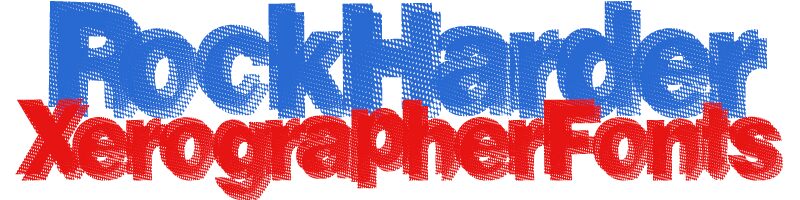
RockHarder by Xerographer Fonts is a free eroded display font with broad, heavy letters and a rough halftone texture. Offset layers and broken edges make the forms look shaken, overprinted, and worn.
Concert posters are its strongest setting, especially for punk, metal, or industrial music. The same distressed printing effect suits album covers and band merchandise, where the lettering can merge with photocopied portraits, grainy photography, or screen-printed graphics.